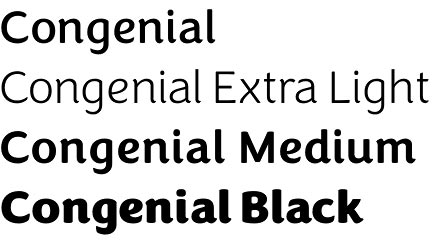
Congenial font family
Congenial font family is a modern typeface that is the latest release by the very successful US designer Laura Worthington. In fact, the idea behind it was for her to create a typeface for her website that was to be a companion to her decorative calligraphic fonts. However, there are still plenty of hand drawn elements included as Laura has always been faithful to this style. These are more visible in the heavier weights but can be felt in the lighter ones too. All in all, the result is a highly readable typeface with a pronounced humanist tendency and very friendly and casual appearance. These effects are achieved by using softer letterforms, swelling diagonal strokes, flared terminals, large x-heights, gentler curves etc. As a result Congenial flows evenly and effortlessly and great comfort which makes it perfect for many different applications like headlines, logos, magazine covers, posters, packaging, branding etc.
Congenial font family is large enough to suit any taste as it comes in 10 different weights: Hairline, Ultra Light, Thin, Extra Light, Light, Regular, Medium, Bold, Heavy, Black with 413 characters per weight. A handful of OpenType features are provided too such as swashes, alternates and ornaments.
Congenial font family is another high quality release by Laura Worthington. Her work is held in high regard and quite naturally three of her typefaces (Alana, Hummingbird, and Samantha) have received Awards of Excellence from Communication Arts. Here are even more of her wonderful projects: